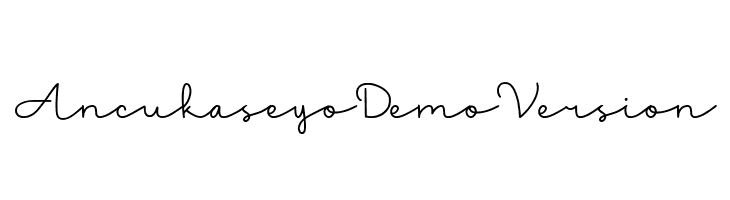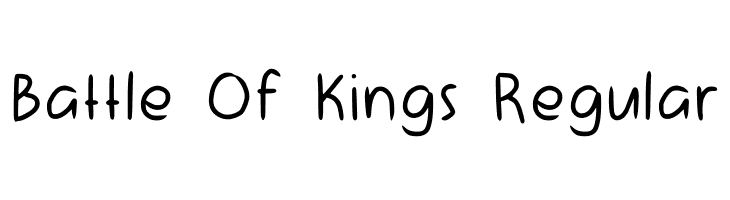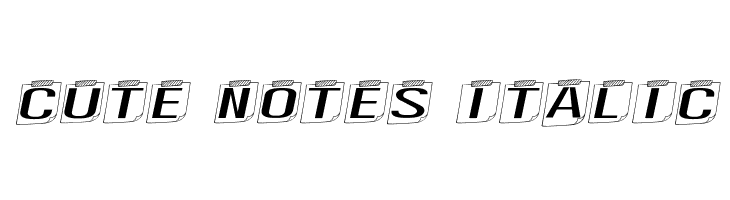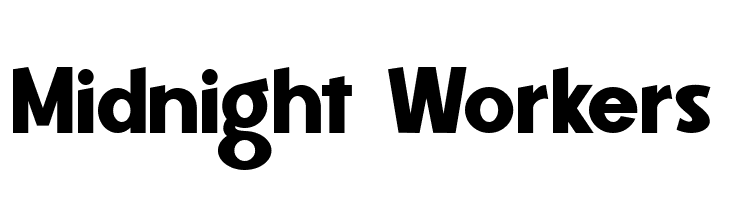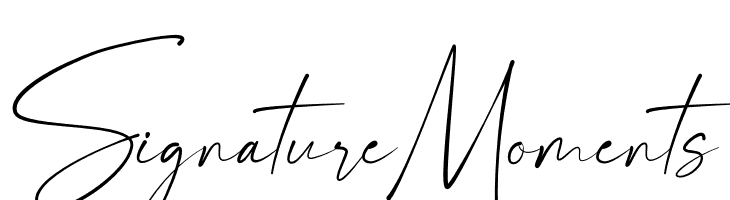
A charming script font with elegant, flowing lines and smooth curves.
A handmade, rustic, and condensed font with a playful and personal touch.
A bold, modern font with geometric shapes and smooth curves.
Bold, extra-condensed serif font for Ethiopic script.
A bold, geometric font with a modern and assertive style.
A playful, italicized font with a notebook page background, ideal for creative and informal projects.
A playful, bold handwritten font with rounded, casual letterforms.
A playful, handwritten font with smooth, rounded strokes and a casual style.
A bold, angular font with a futuristic and geometric design.
A bold, angular font with a modern and vintage blend, featuring high contrast and decorative elements.